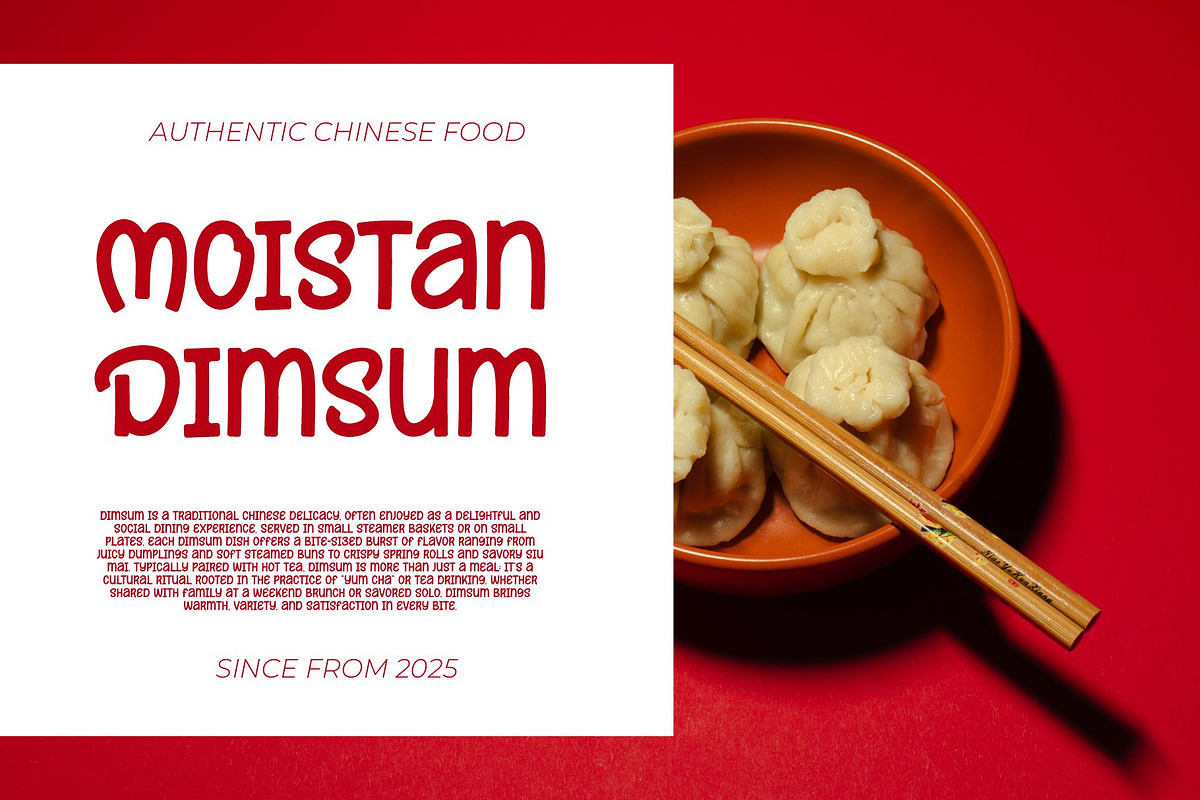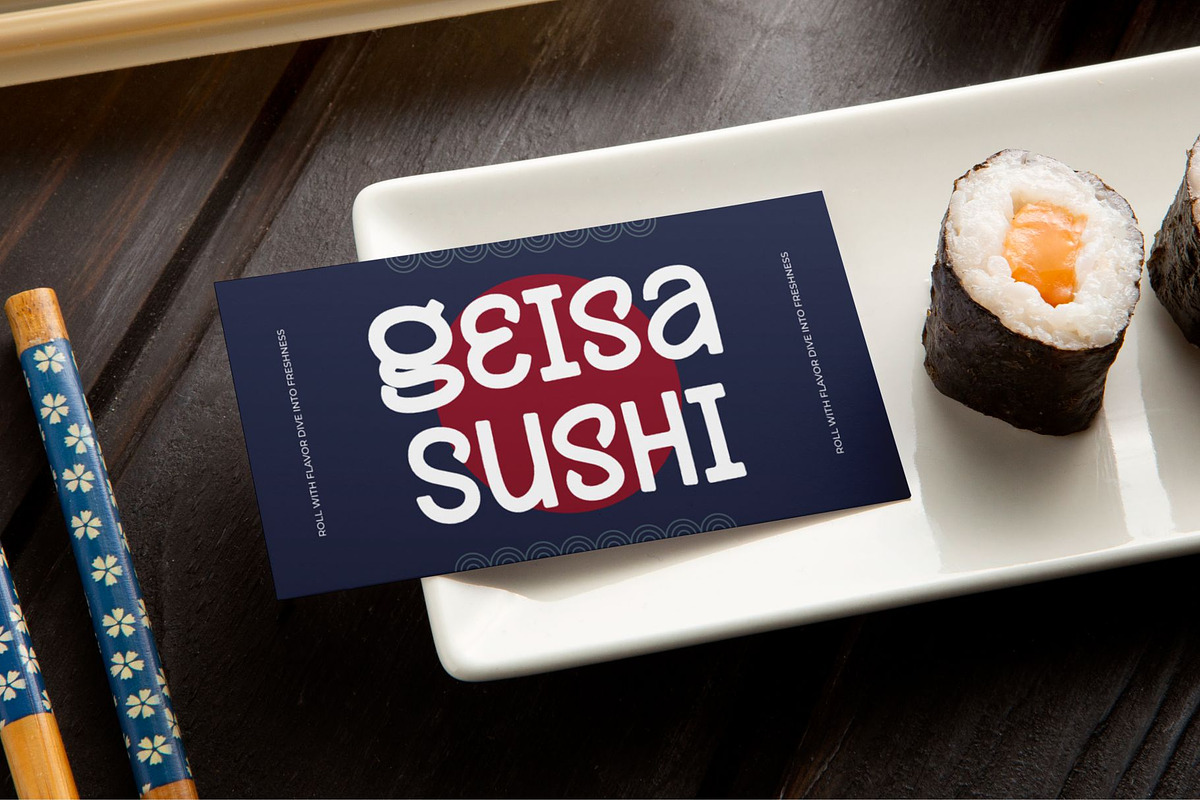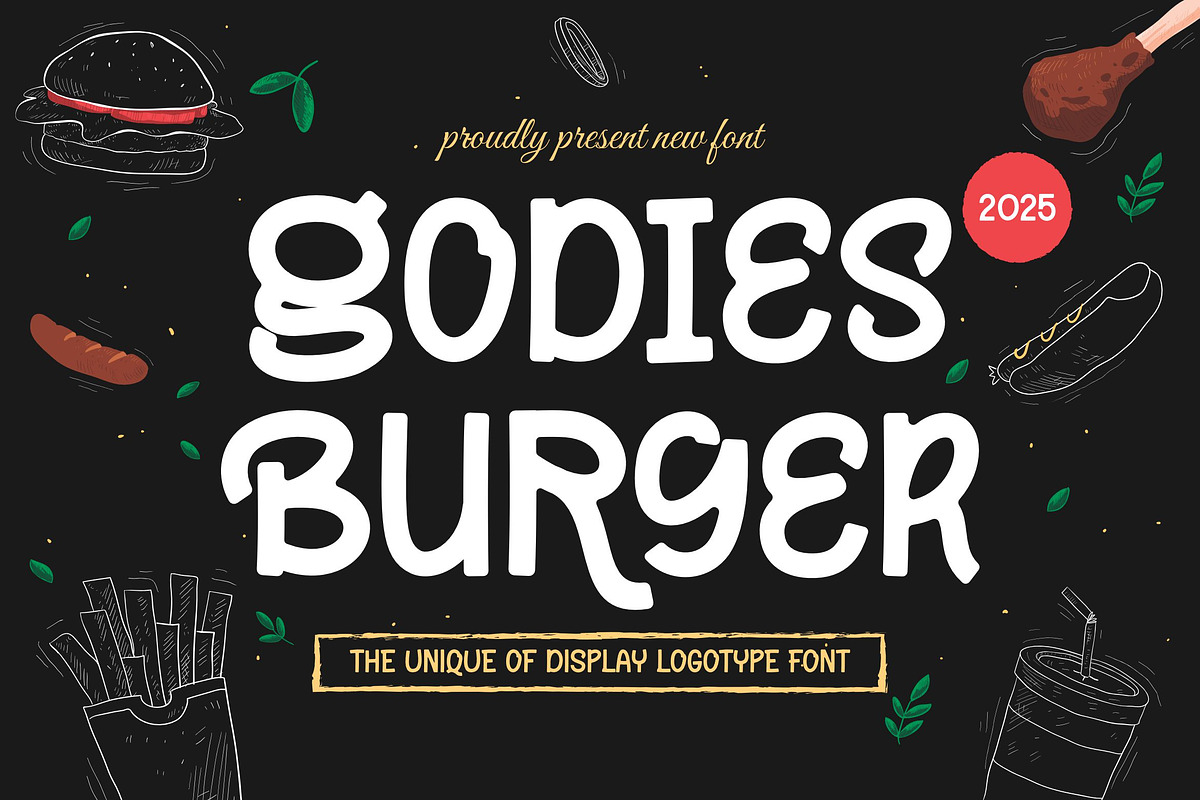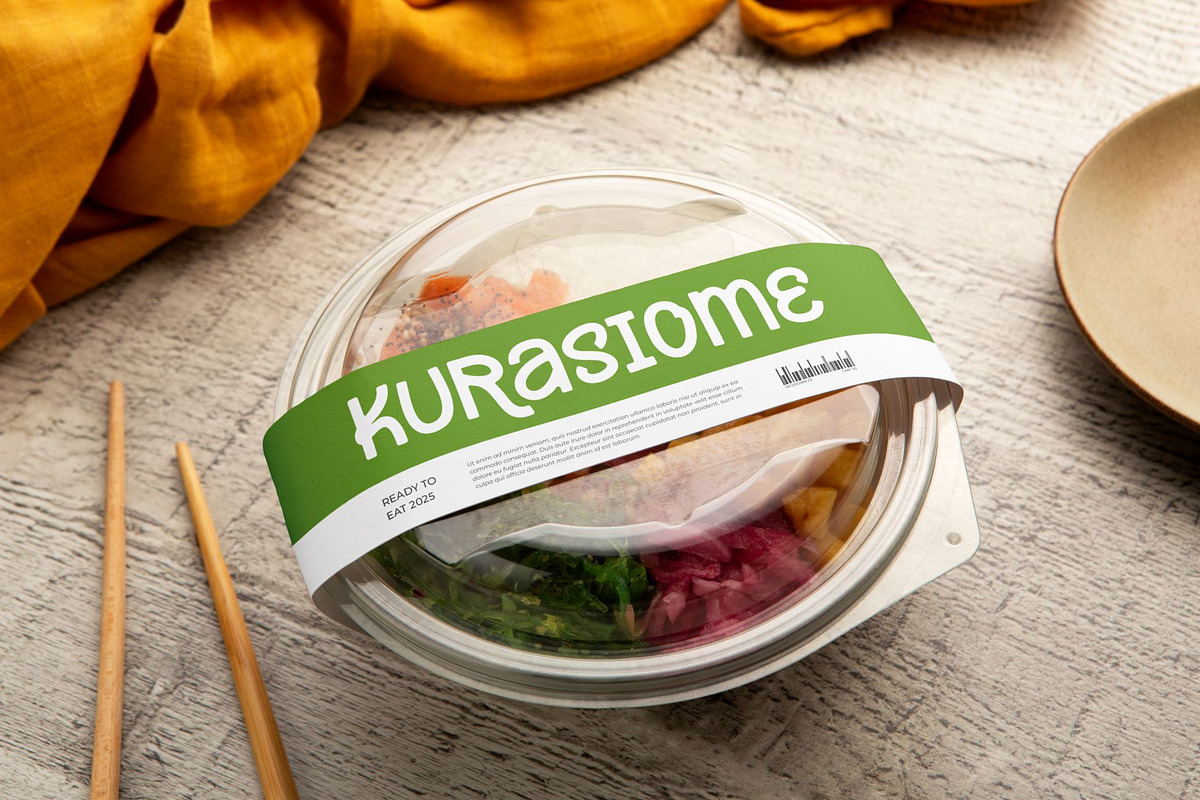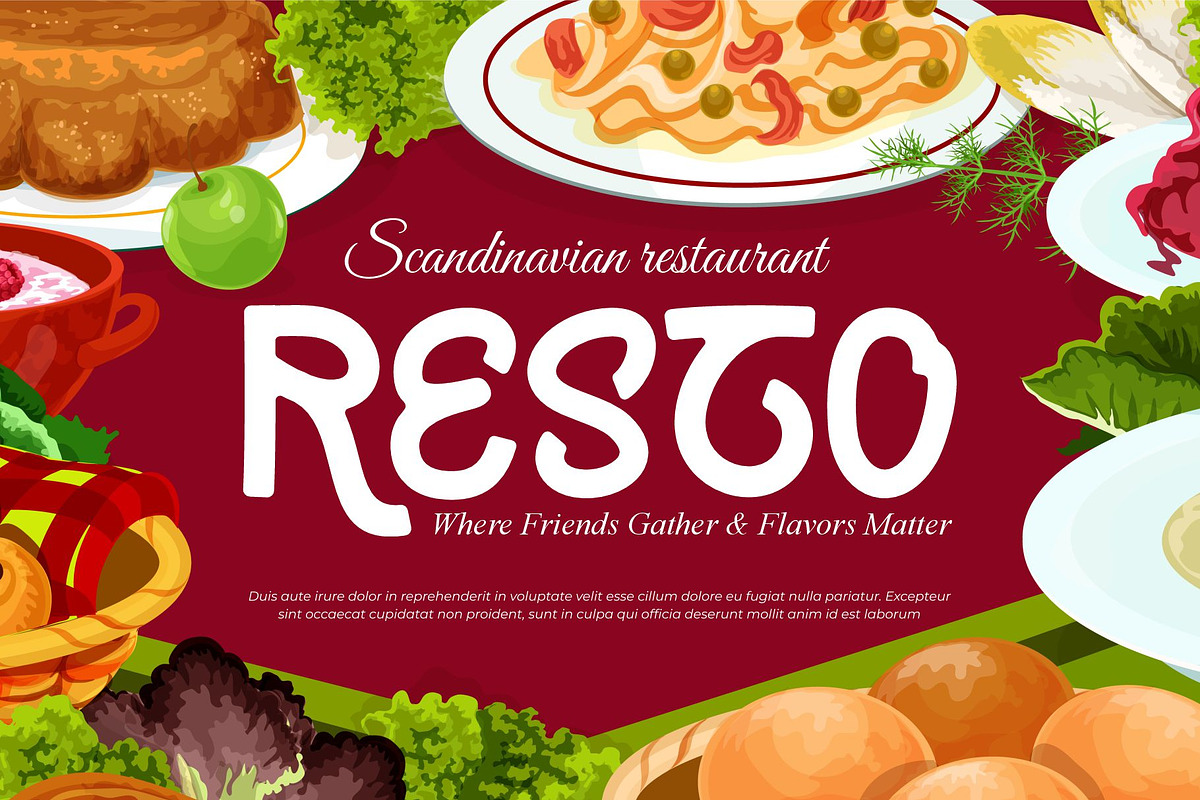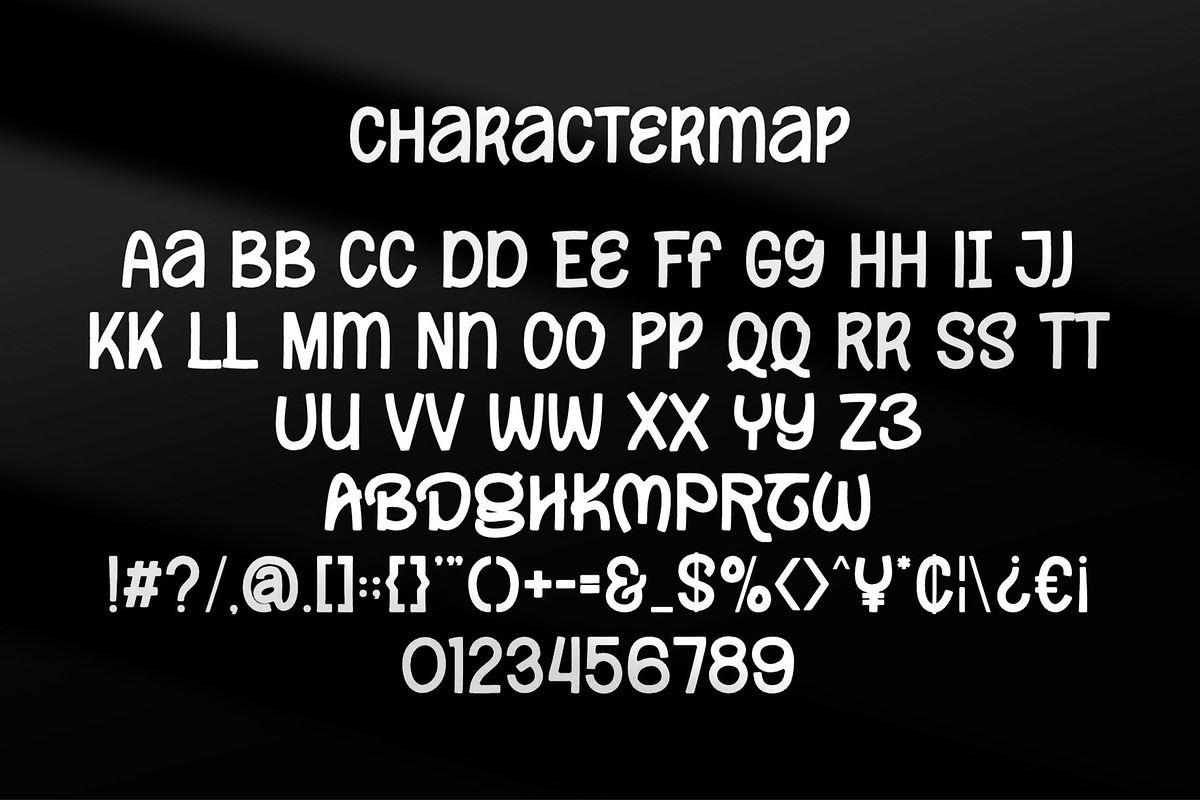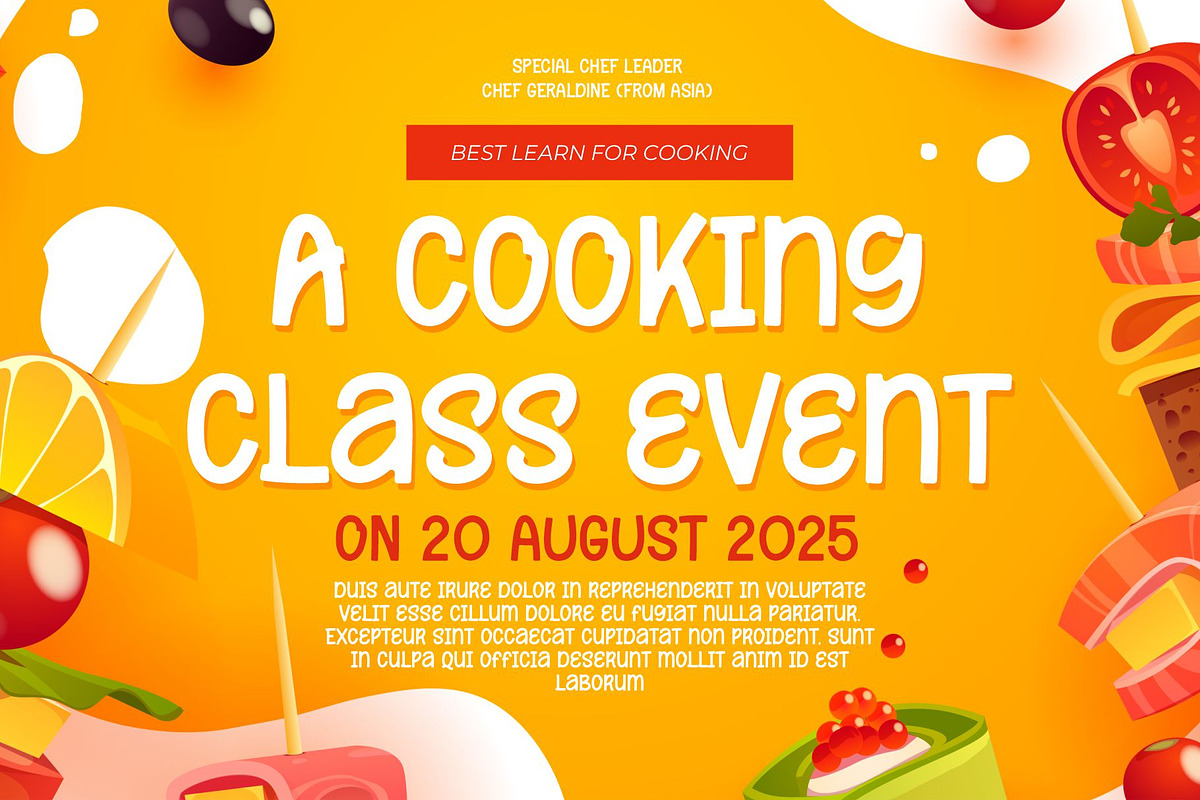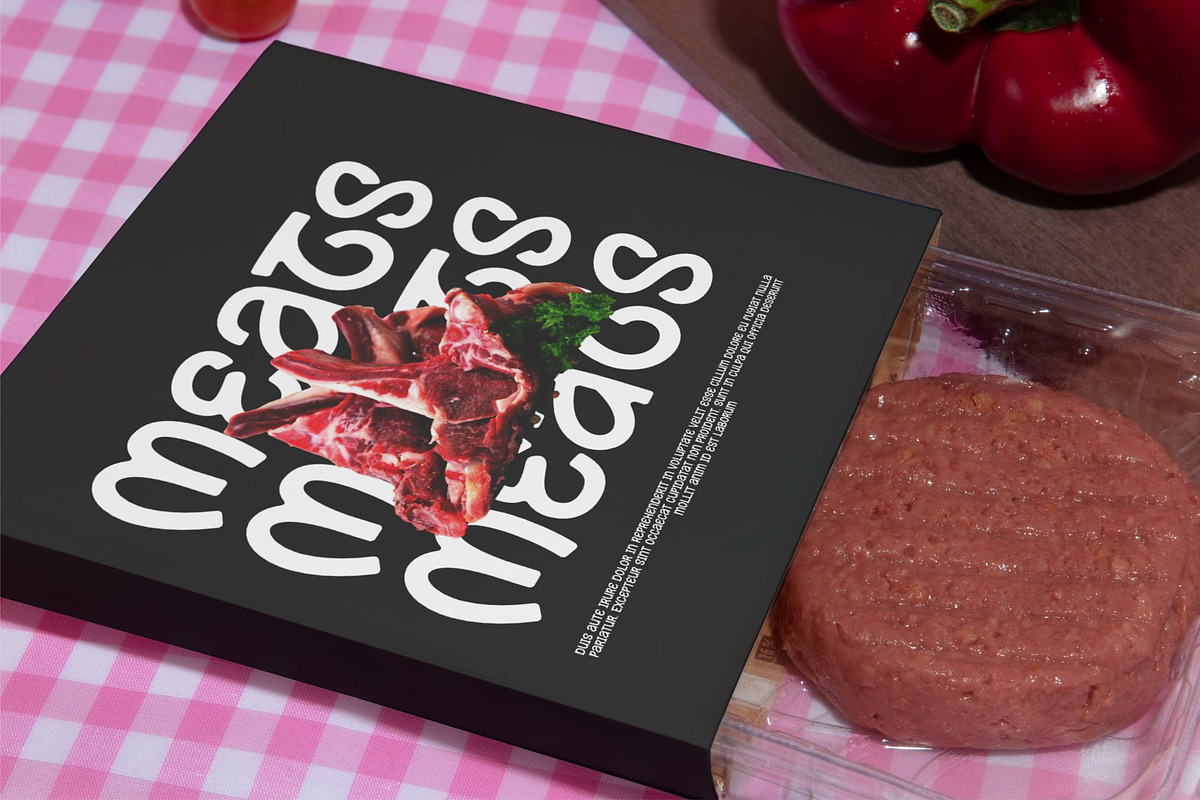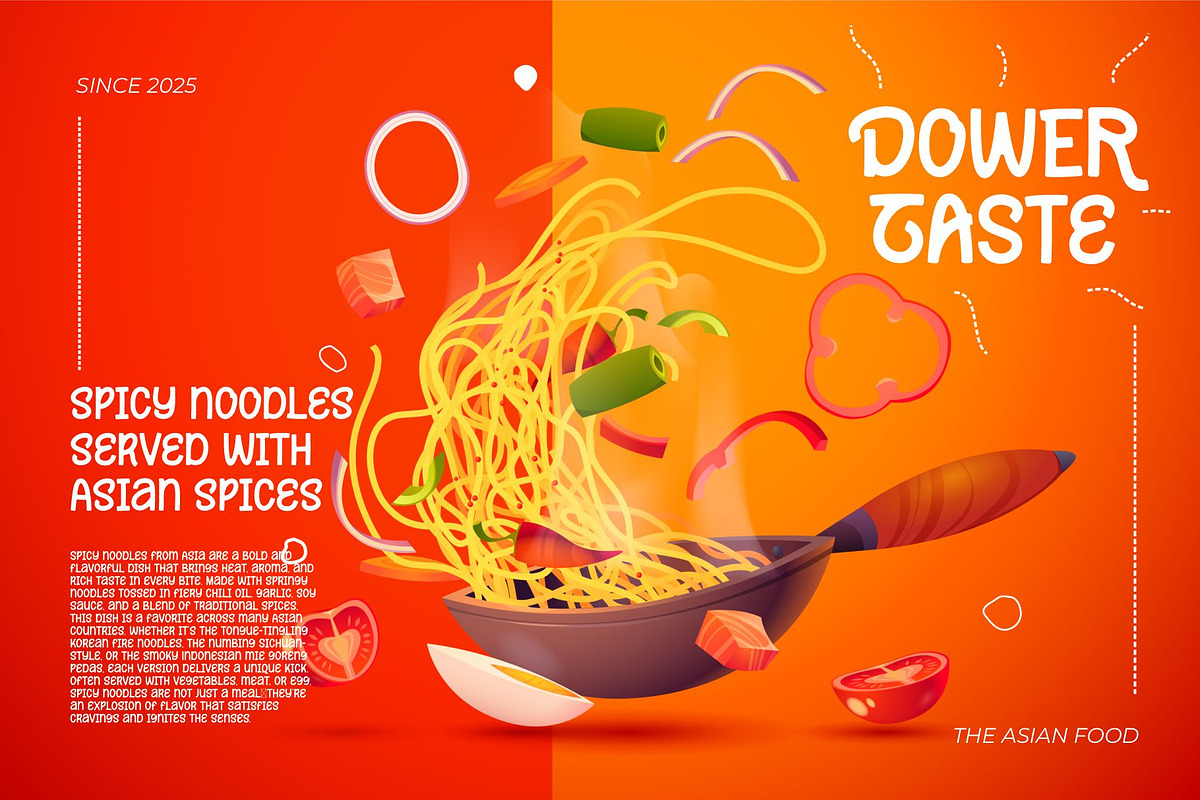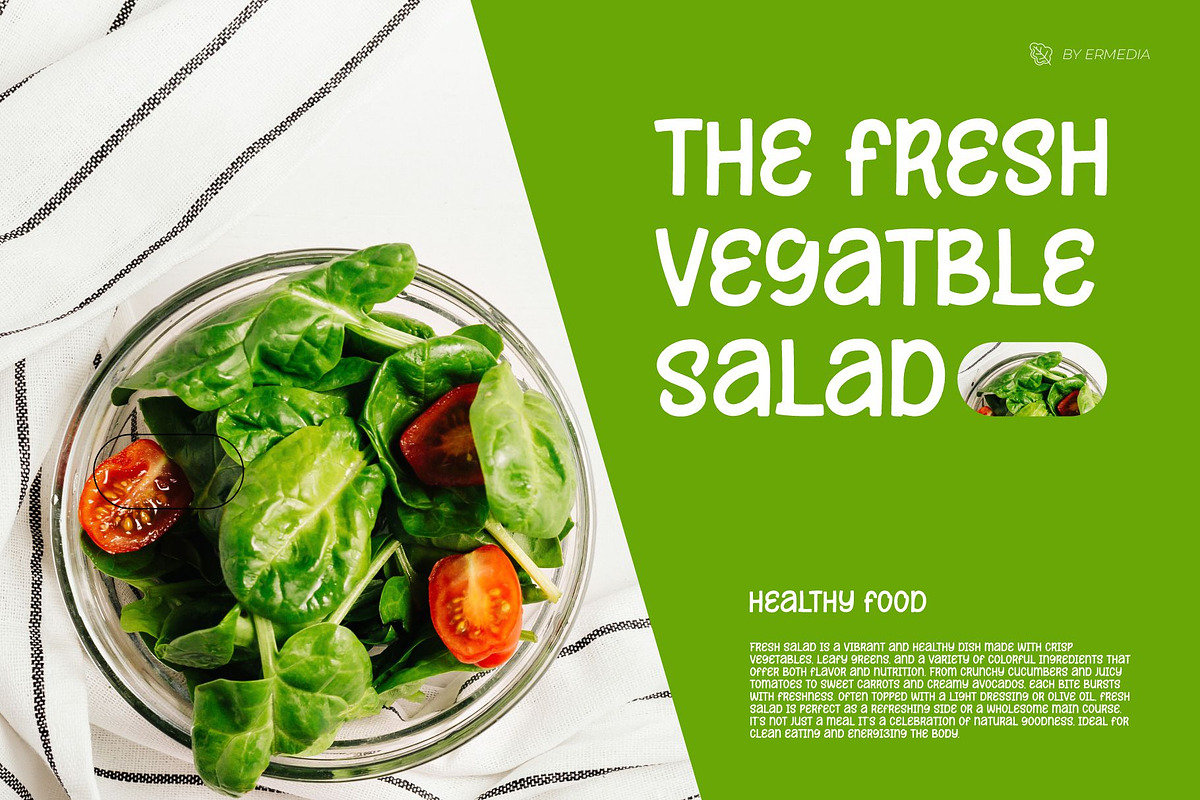
Godies Burger || Modern Display Type
INTRODUCING NEW FONT Godies Burger is a deliciously bold food display font designed to bring flavor and fun to your creative projects. With chunky curves, playful energy, and a mouthwatering personality, this font is perfect for everything related to food—whether it’s restaurant branding, food packaging, café menus, or culinary social media content.
The letters of Godies Food are crafted to feel inviting and flavorful, making any text pop like a tasty treat. Its cheerful style instantly adds warmth and approachability, helping you capture attention and communicate your message with charm. If you're working on a project that needs to feel tasty, vibrant, and irresistible—Rada Cenak is your secret ingredient.